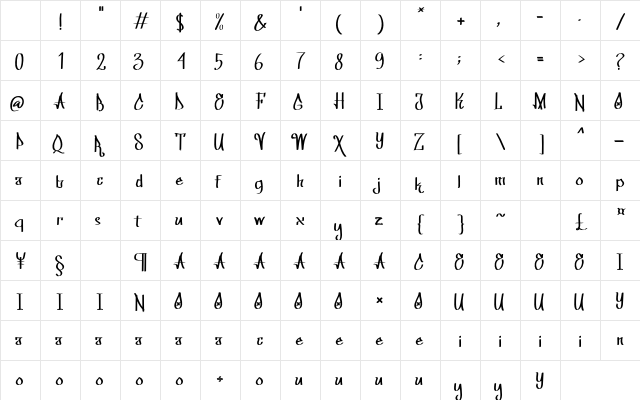
Complete Skate Hip Hop Tag Regular glyph index. Displaying only characters natively supported by Skate Hip Hop Tag Regular font.
Skate Hip Hop Tag is a composed and adaptable typeface that performs quietly and consistently across a wide range of design contexts.